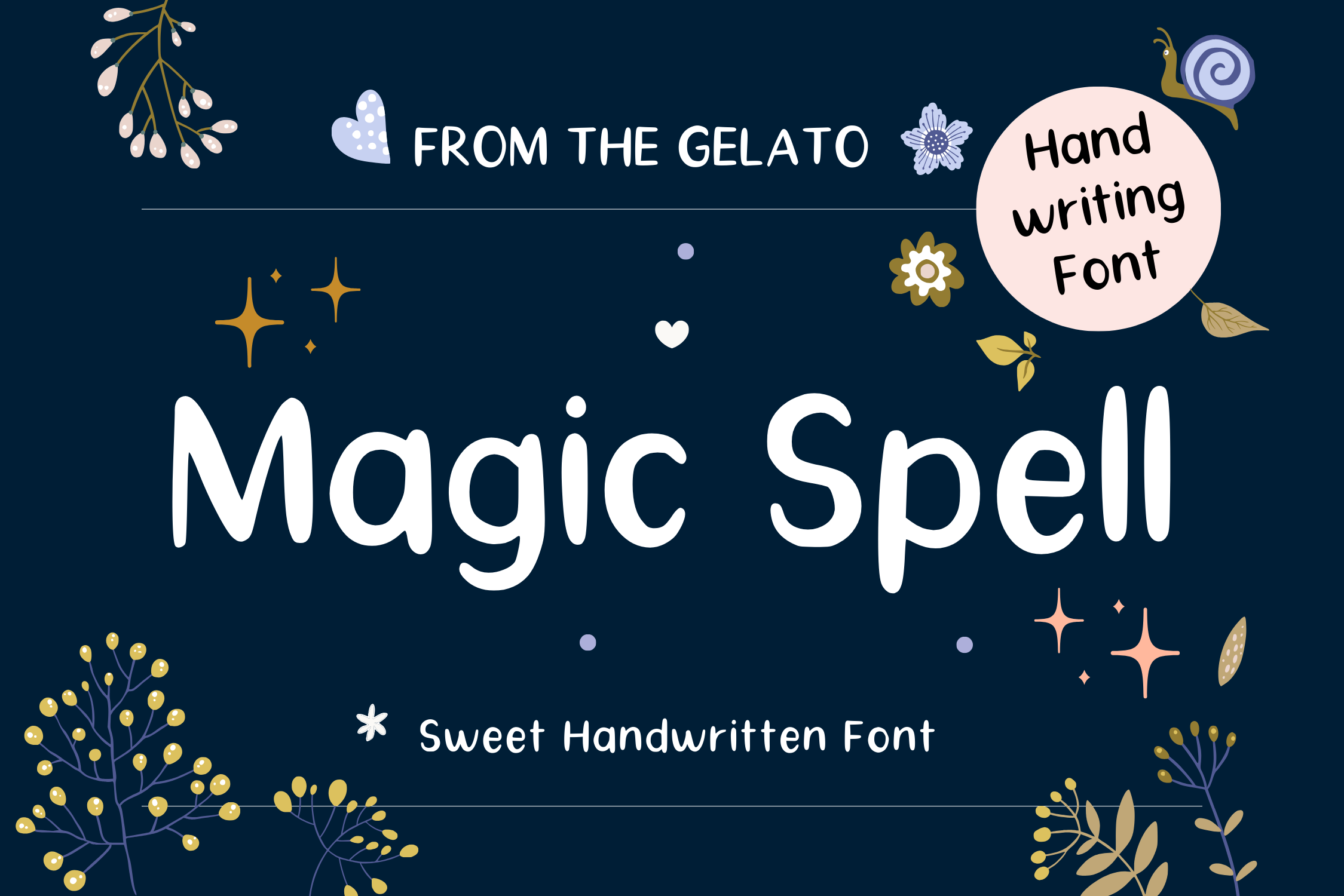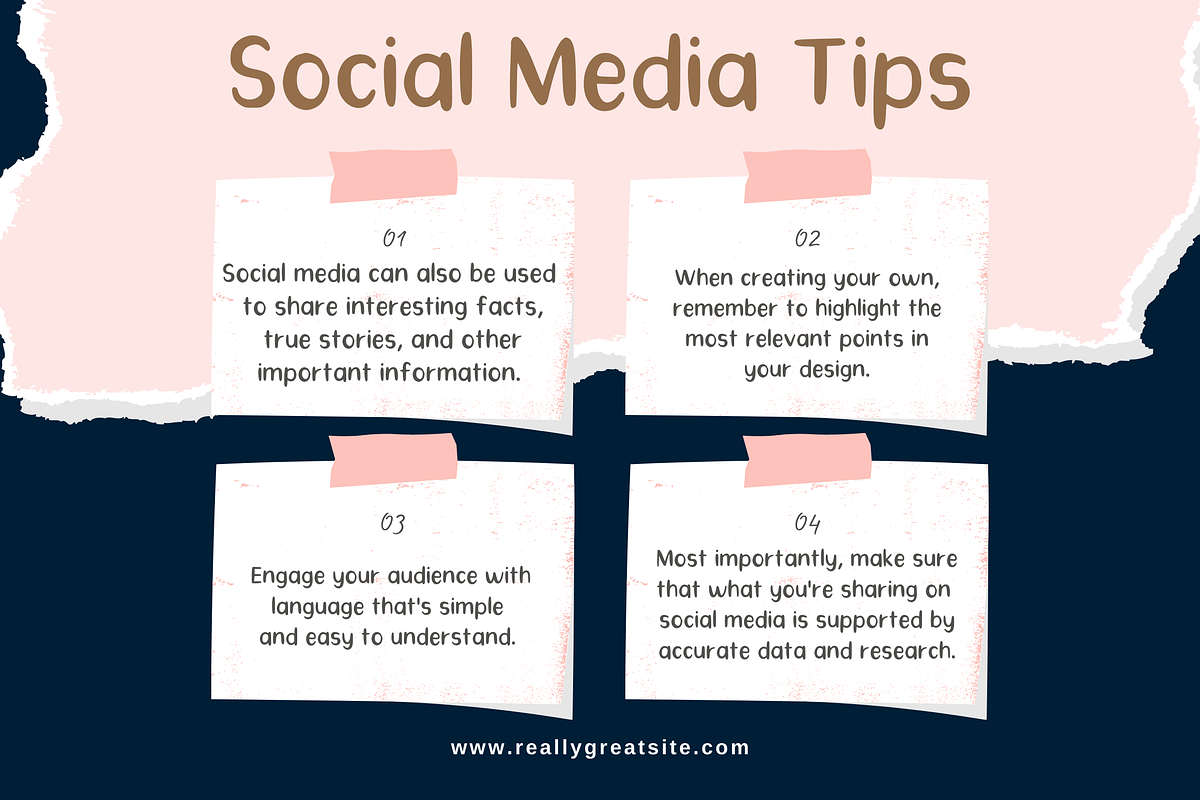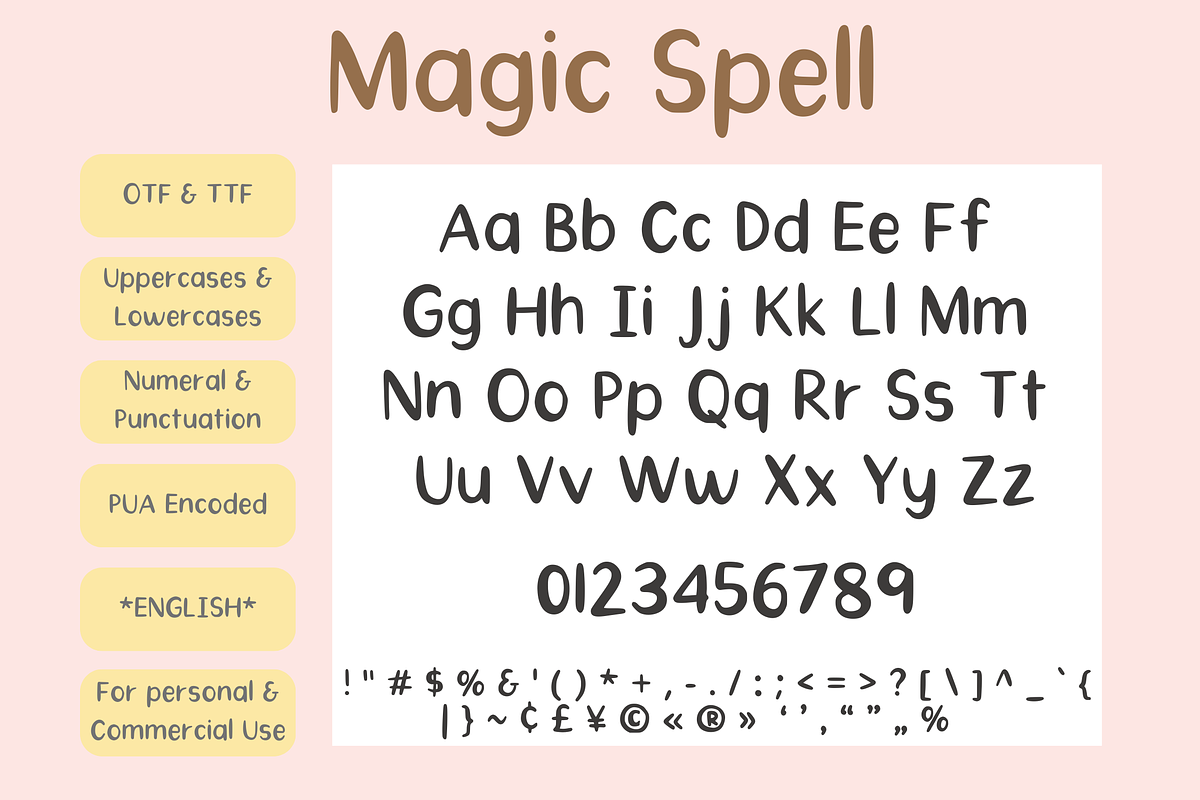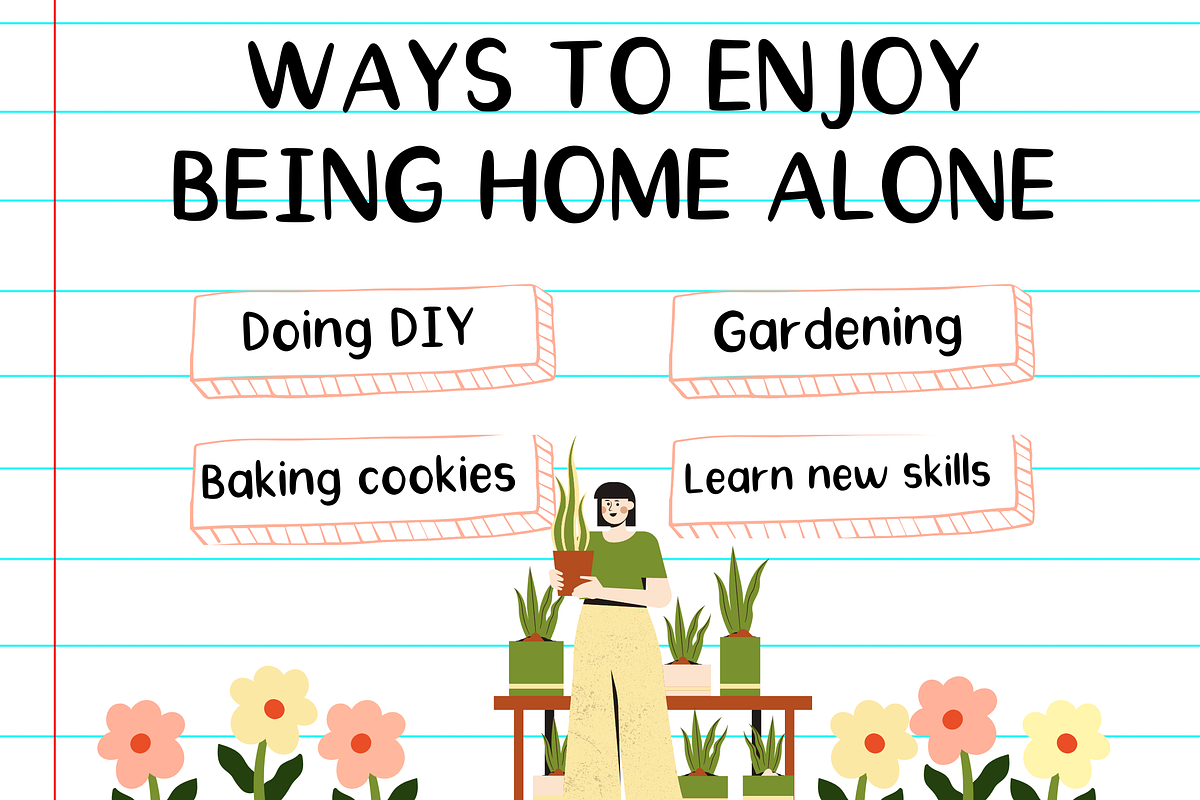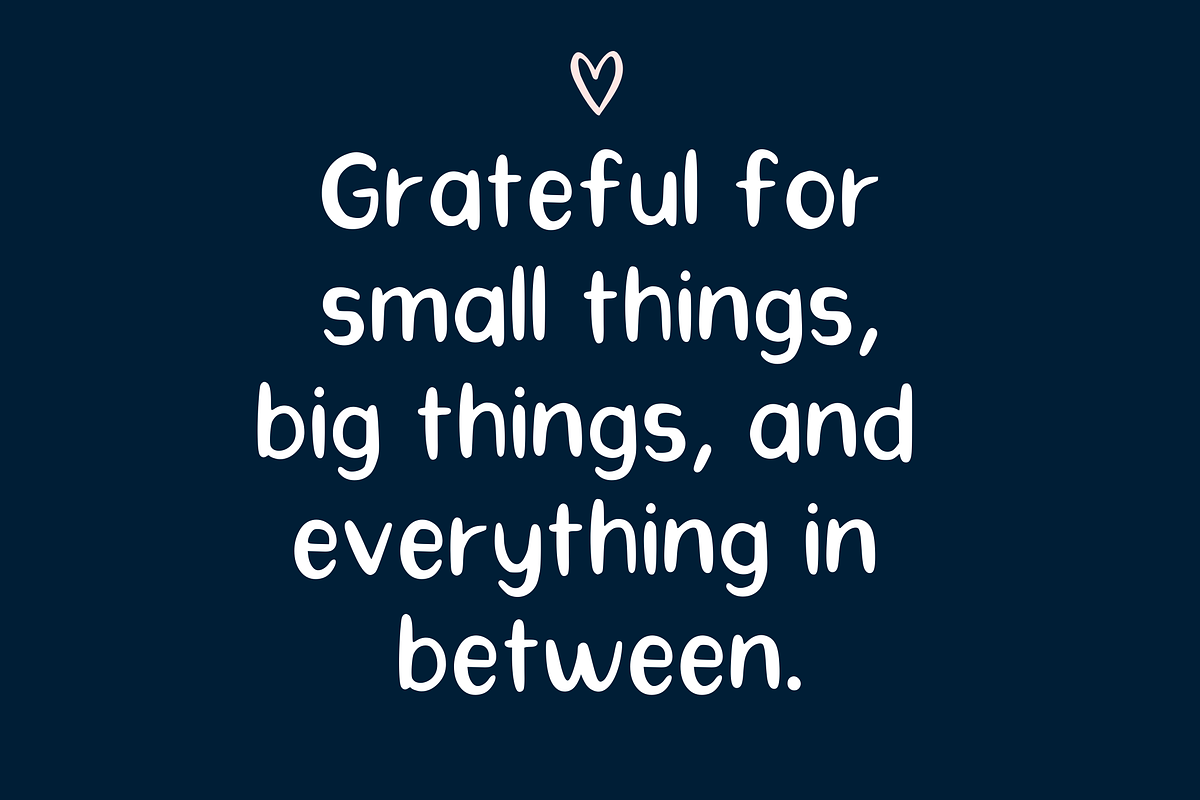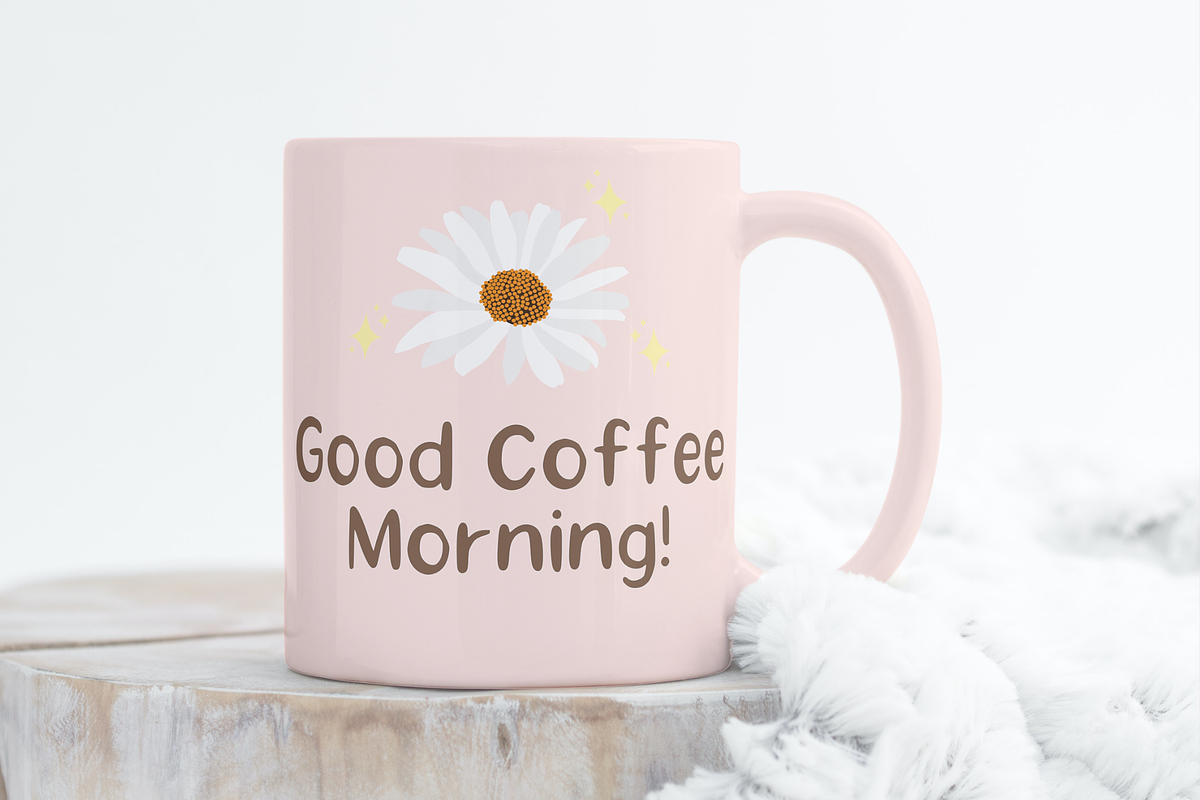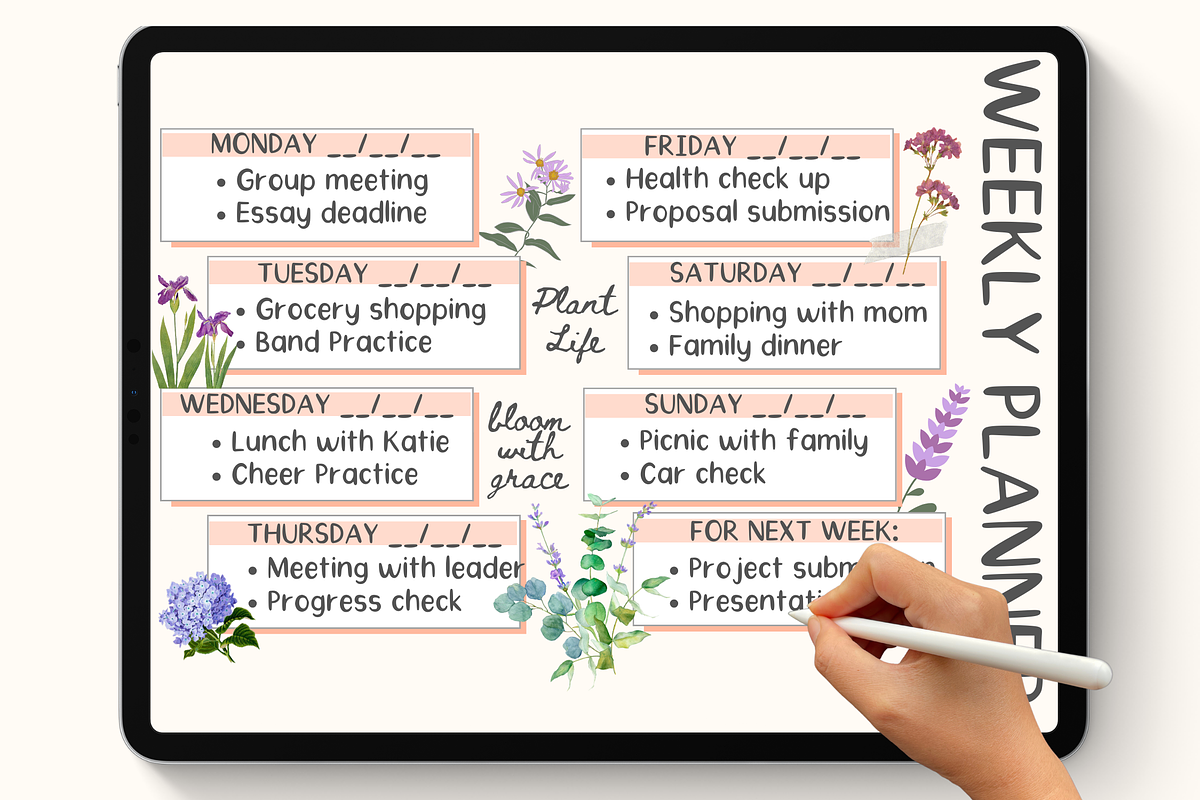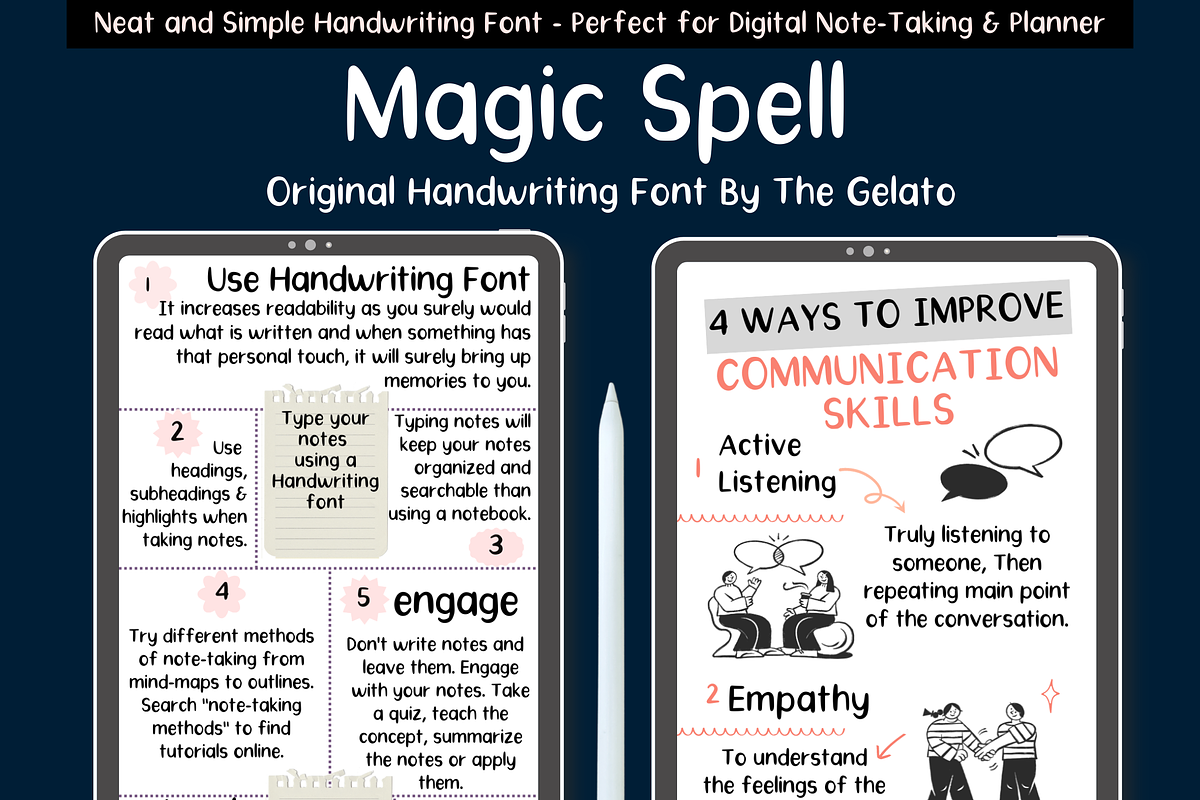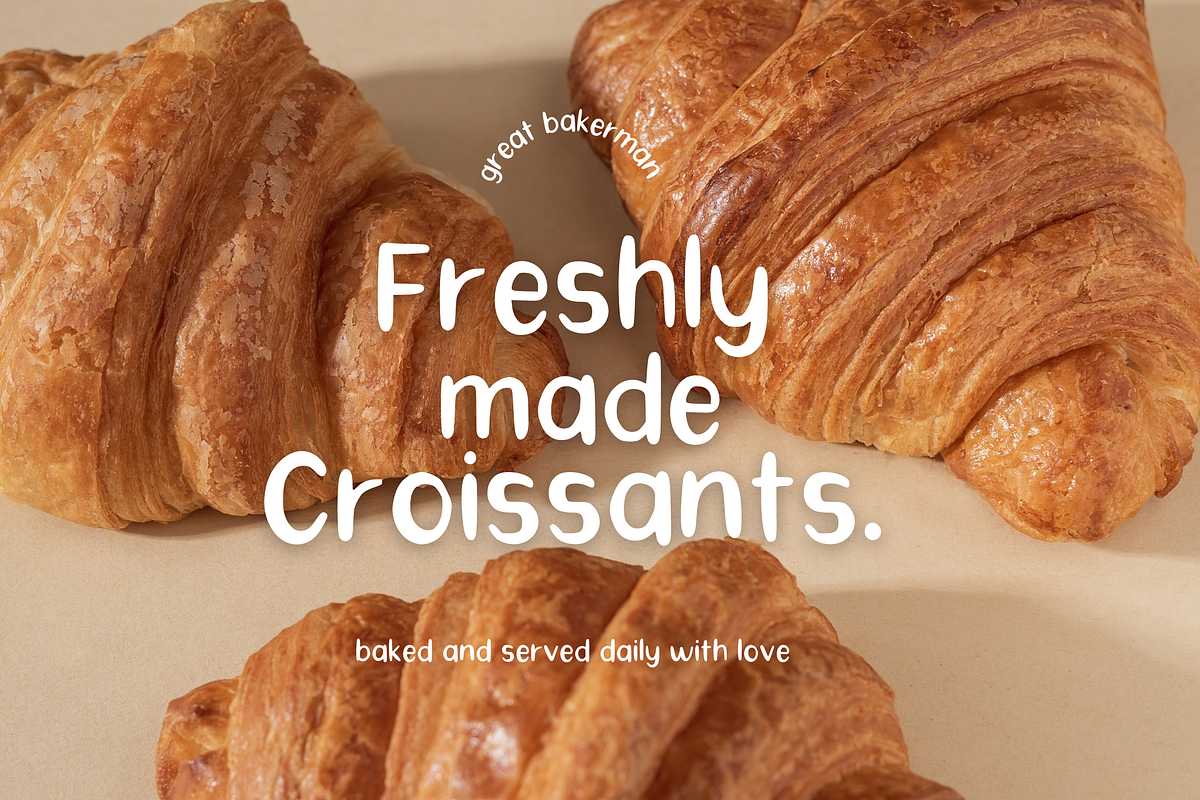
Magic Spell Minimal Handwritten Font
Magic Spell font is a very neat handwritten font that can be used as Handwriting Script Font, GoodNotes Handwritten Font, Ink Pen Font, Ball Point Pen Font, Simple Handwritting, Journaling Font, Farmhouse Font, Monoline Handwriting Font, Neat Tidy Font, Handwritten Embroidery Font, Study Font
Perfectly suitable for numerous use such as quotations, banners, logos, product packaging, titles, headers, menu lists and even for digital note taking! Also, can work well on iPad planners, digital planners, GoodNotes templates, and other digital notes and journals.